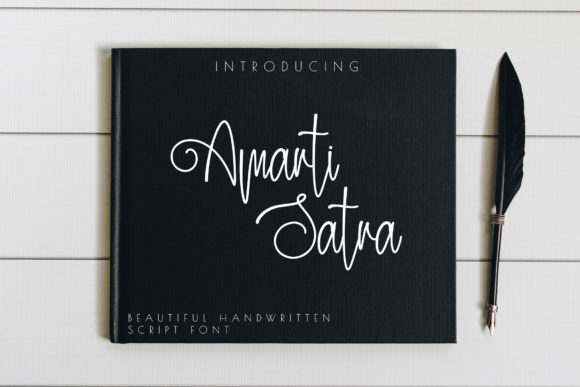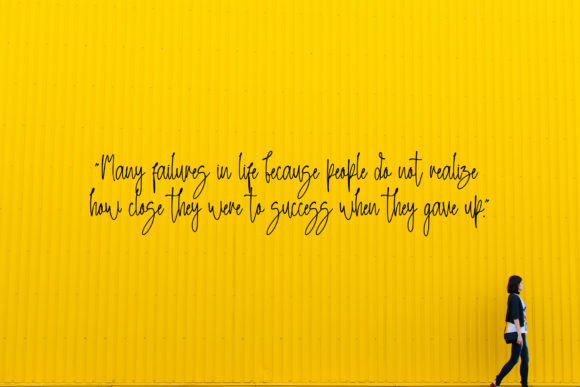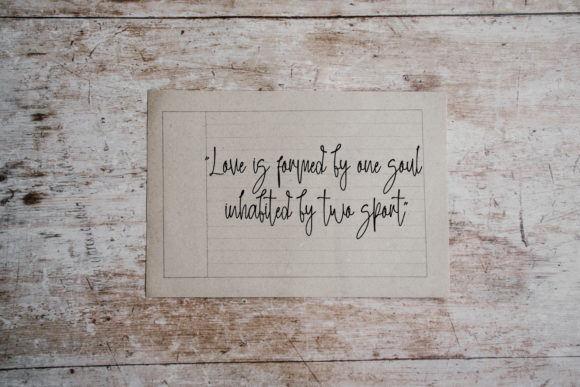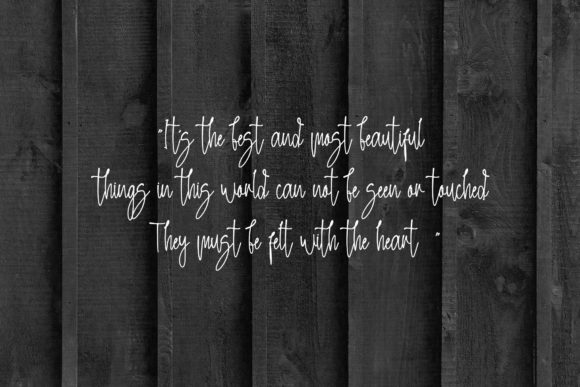
About Amarti Satra Font
Amarti Satra is a thin and beautiful script font. It has a casual, yet elegant touch. It can be used for various purposes such as logos, wedding invitations, headings, t-shirts, letterhead, signage, labels, news, posters, badges and so much more.